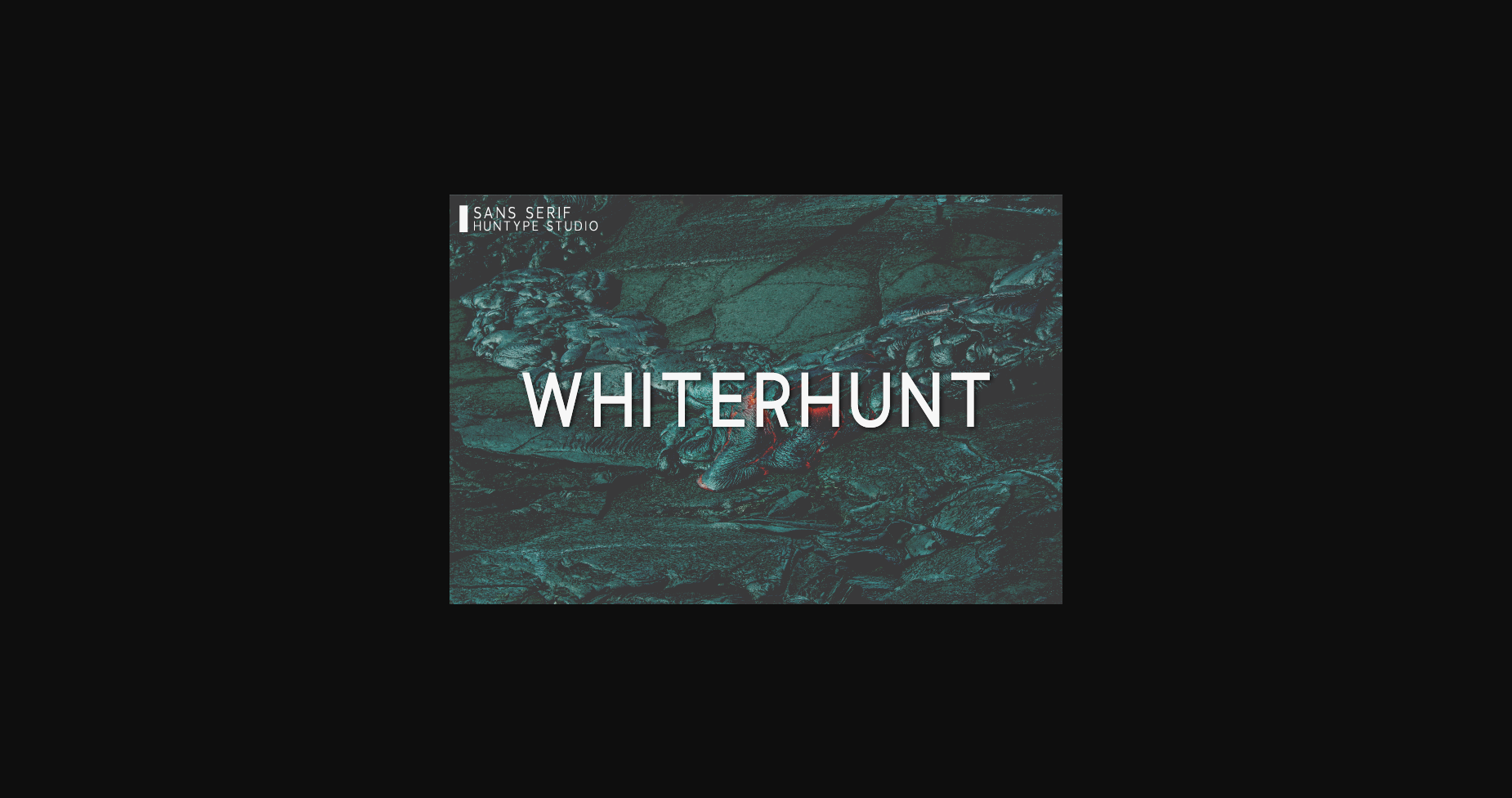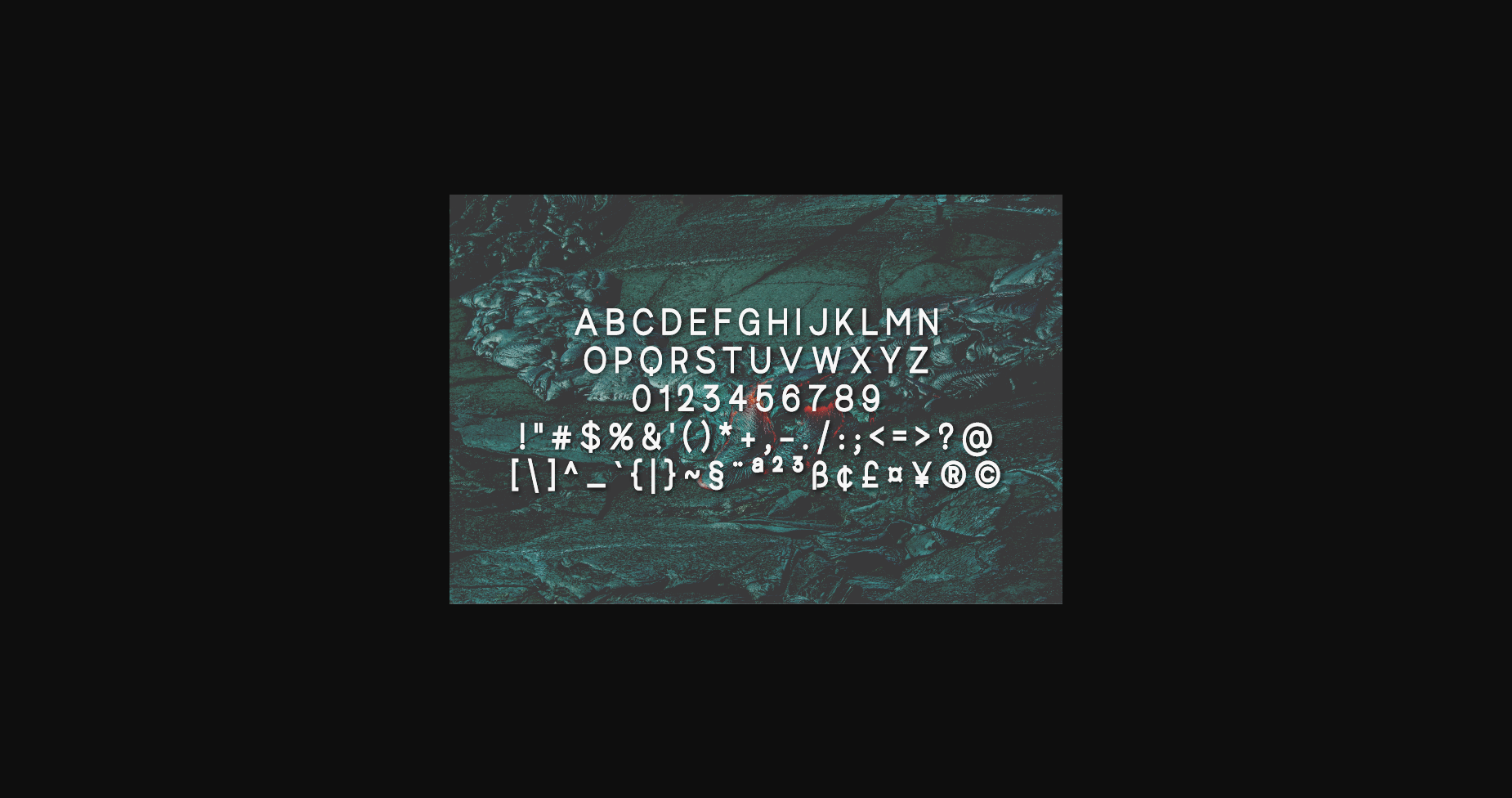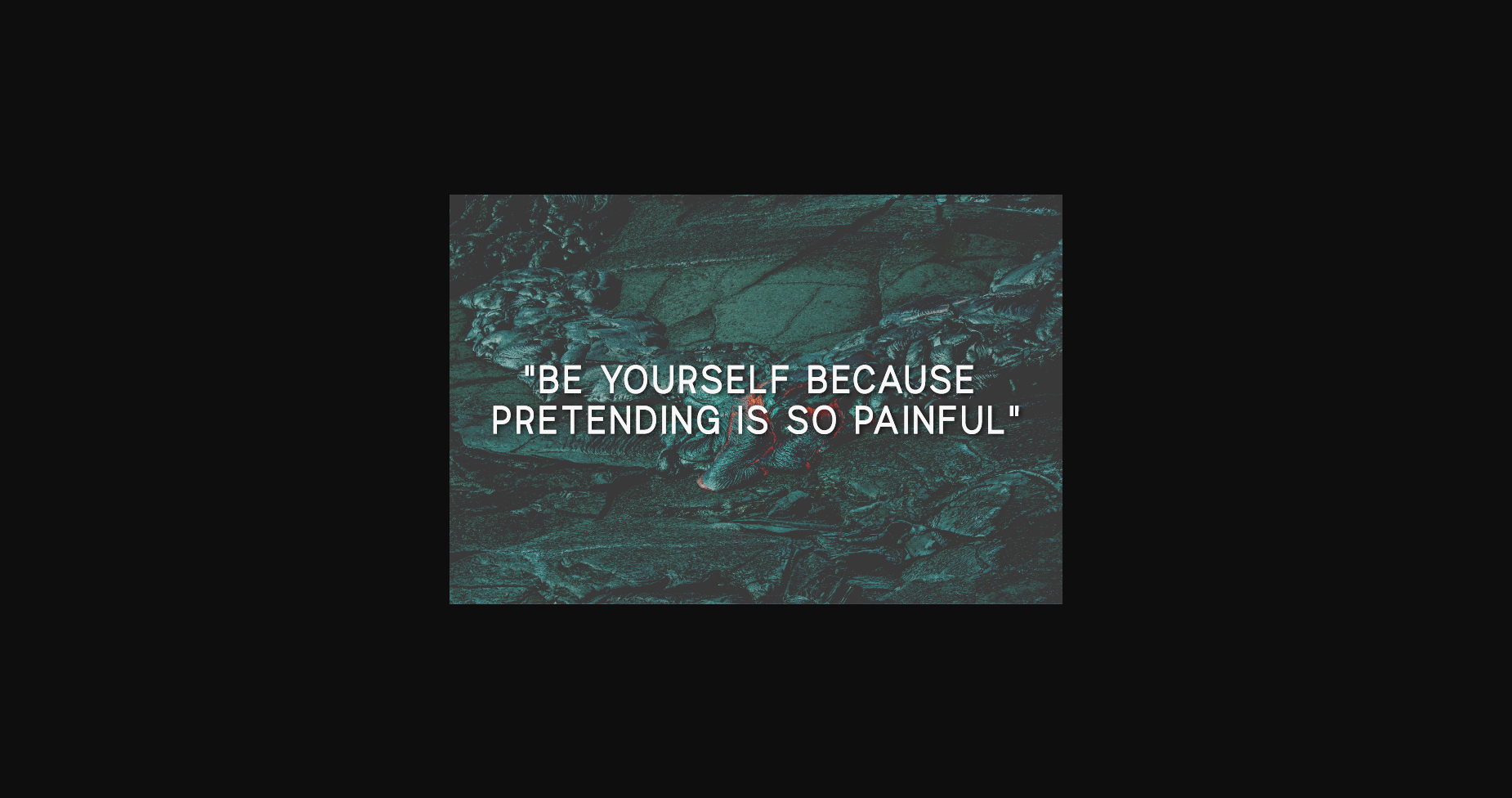
Whiterhunt Font
About Whiterhunt Font
Whiterhunt is a thin and neat sans serif font. It can easily be matched to an incredibly large set of projects, so add it to your creative ideas and notice how it makes them stand out!